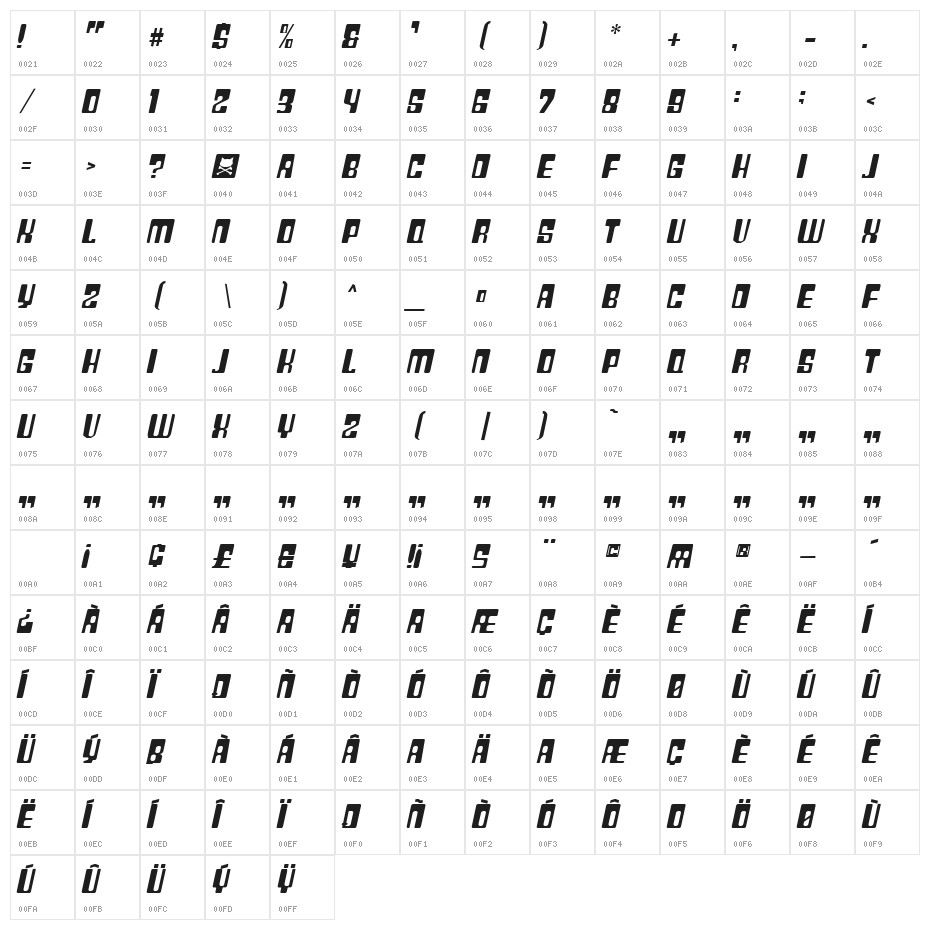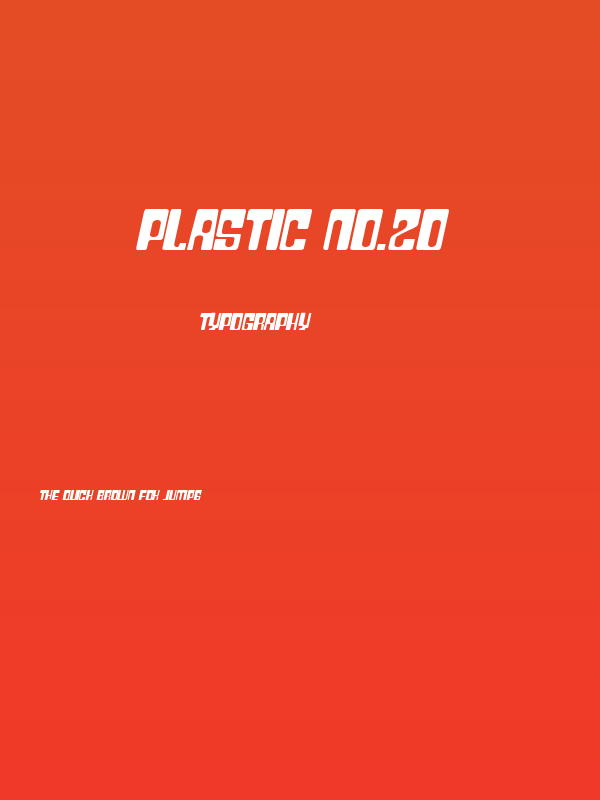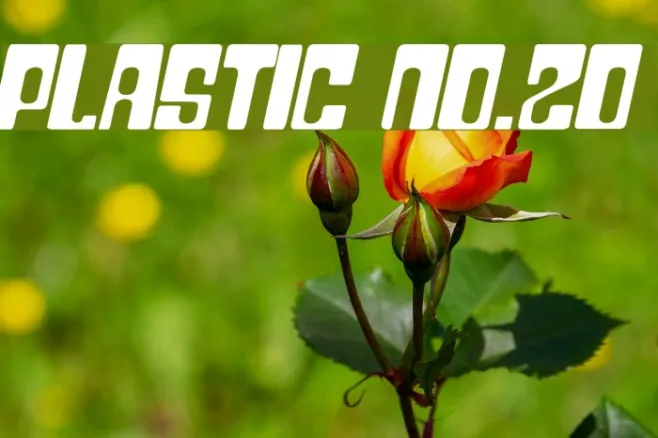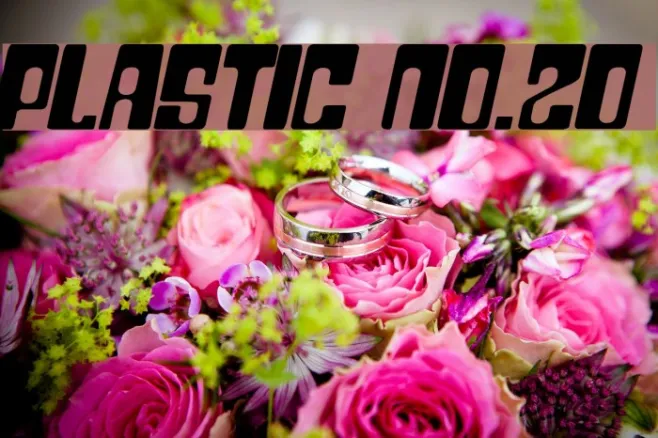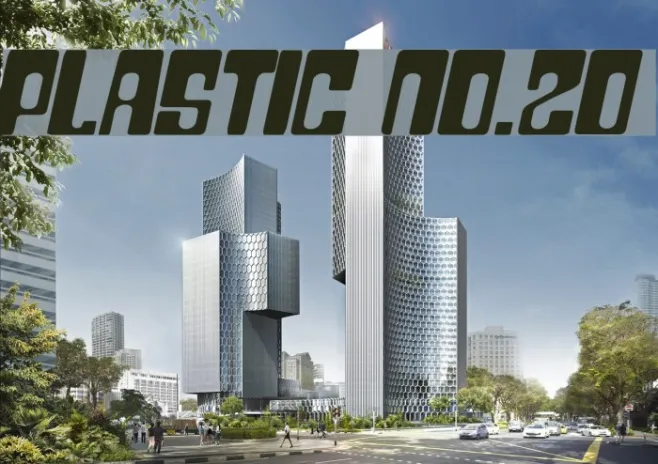
Plastic No.20 Font
Plastic No.20 Description
This font features a bold and dynamic style with a futuristic and sporty aesthetic. The characters are designed with a strong, angular appearance, giving them a sense of movement and energy. The uppercase and lowercase letters maintain a consistent style, with sharp edges and a slightly condensed form. The numbers and special characters follow the same design principles, ensuring a cohesive look across all elements. The font's unique style makes it stand out, suitable for projects that require a modern and impactful visual presence.
| Proposed Projects | Ideal for sports branding, futuristic designs, automotive advertisements, and dynamic posters. |